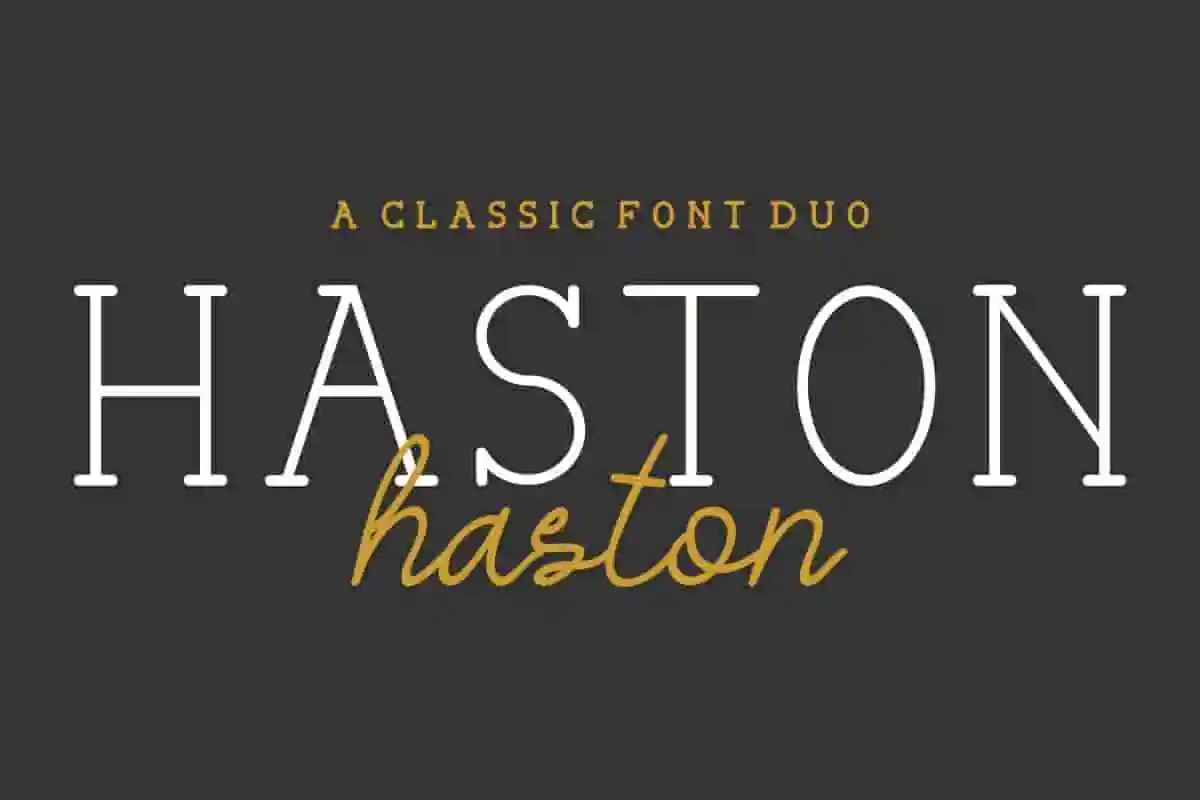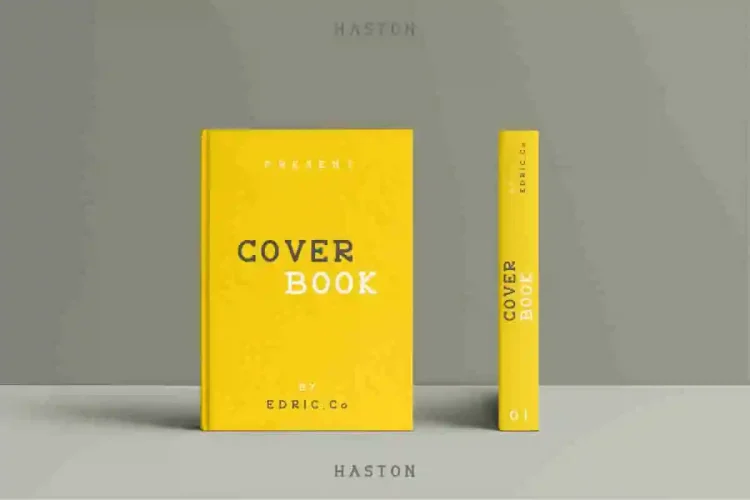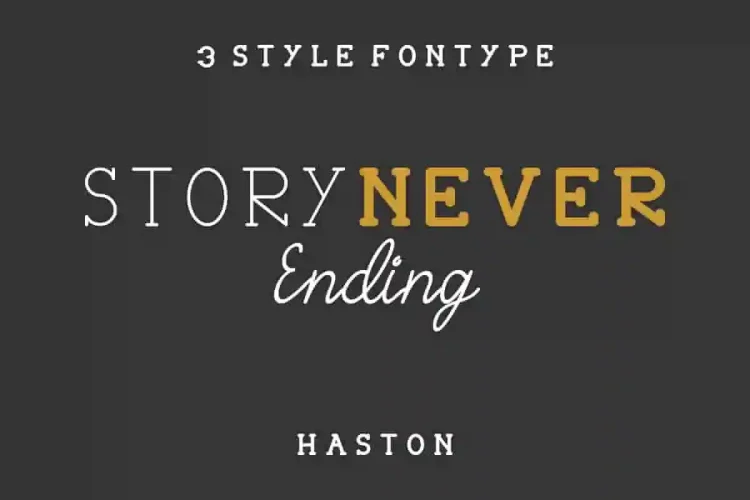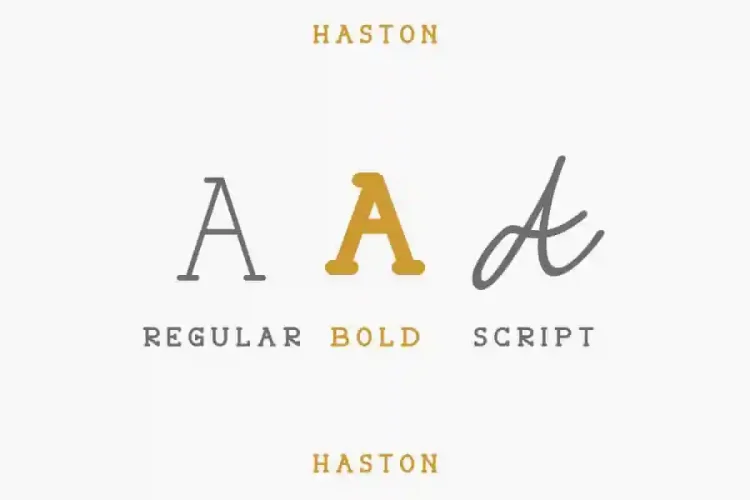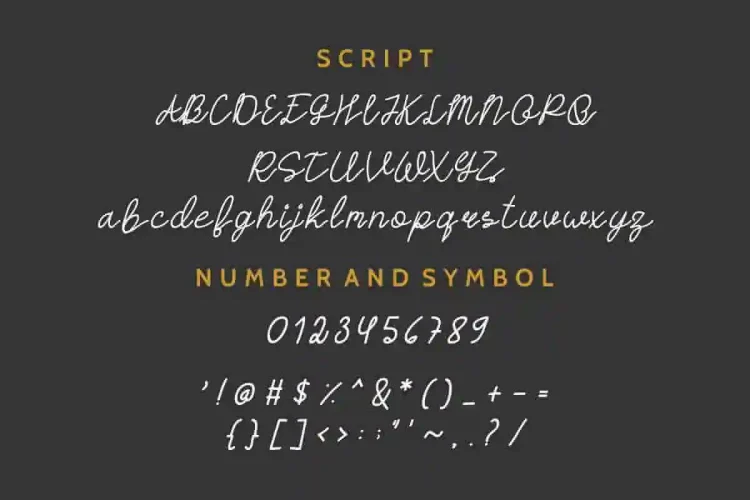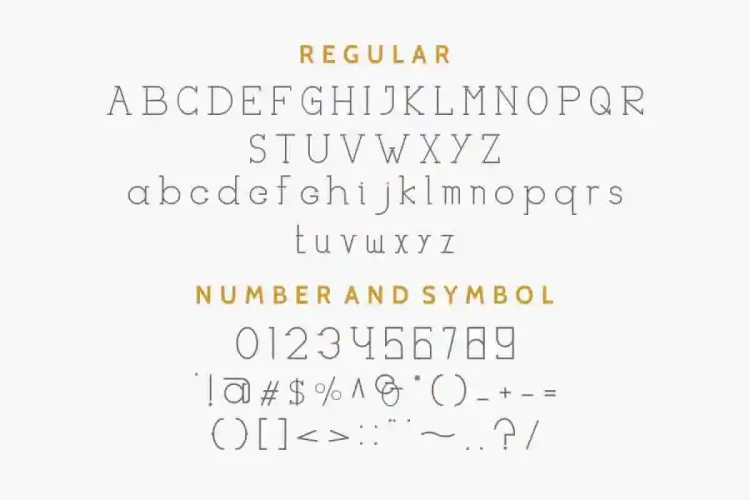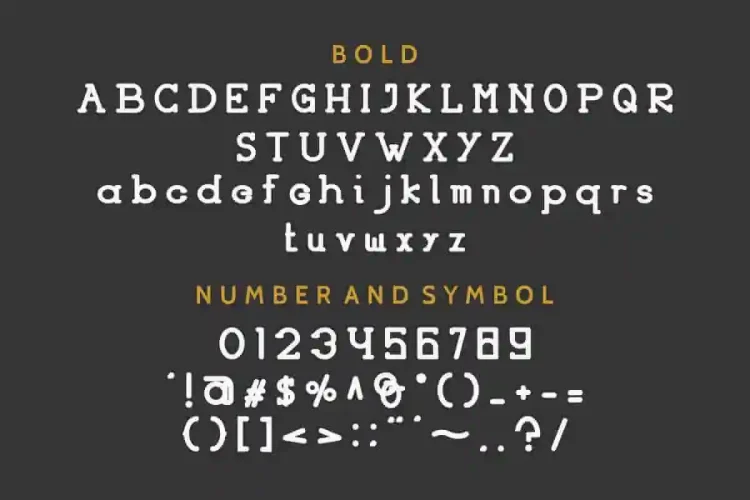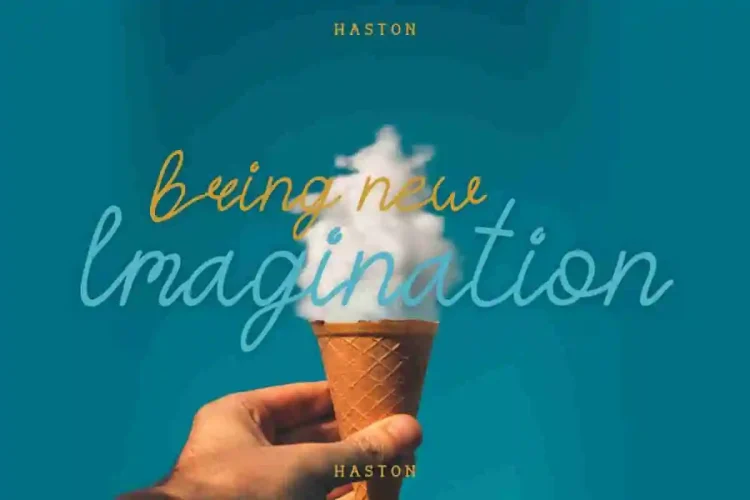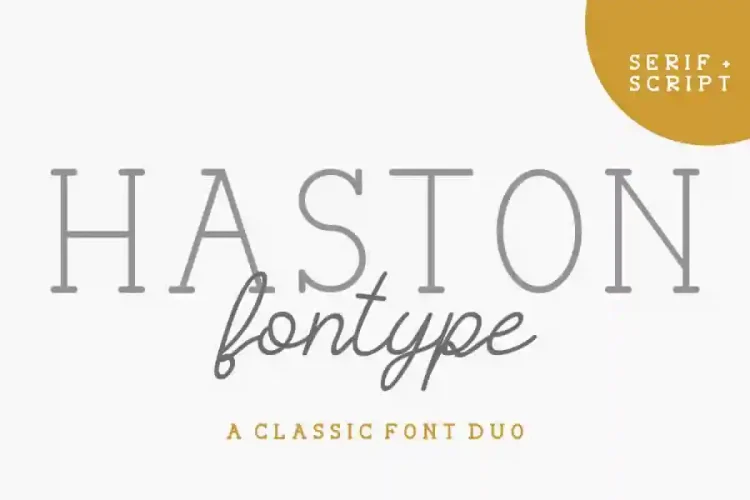
Haston Classic Vintage Font Duo
Hello Everyone! Introducing our newest font : Haston ! This is a new vintage classic DUO typeface. It has a sans serif and script handwriting glyph. Every letter is thoughtfully designed to blend vintage charm with modern elegance — giving your work a standout personality.
Haston combines Sans Serif and Script Font styles in one powerful package. It features three distinctive styles — Regular, Bold, and Script The result? A versatile and stylish combo that adds depth and charm to your design.
🎯 What Makes Haston Unique?
• Regular: Clean and balanced — perfect for headlines, logos, and editorial design.
• Bold: Eye-catching and confident — ideal for posters, packaging, and standout branding.
• Script: Handwritten and elegant — adds a personal, artistic touch to your typography.
This font will be Great for branding, logo, stationery, business card, signage, flyer, brochure etc. There are many industries that is suitable for this font : cafe, music, restaurant, motorcycle, racing, wedding, personal brand, cosmetic, salon, makeup artist, etc
🧩 Why Choose Haston?
• A cohesive Font Duo with built-in harmony
• Works great across industries: café, fashion, music, racing, wedding, beauty and more
Inspired by classic signage and vintage branding, Haston’s aesthetic is both nostalgic and modern. The script adds warmth and personality, while the sans serif keeps your design structured and easy to read. From motorcycle garages to wedding invitations, this font adapts beautifully.